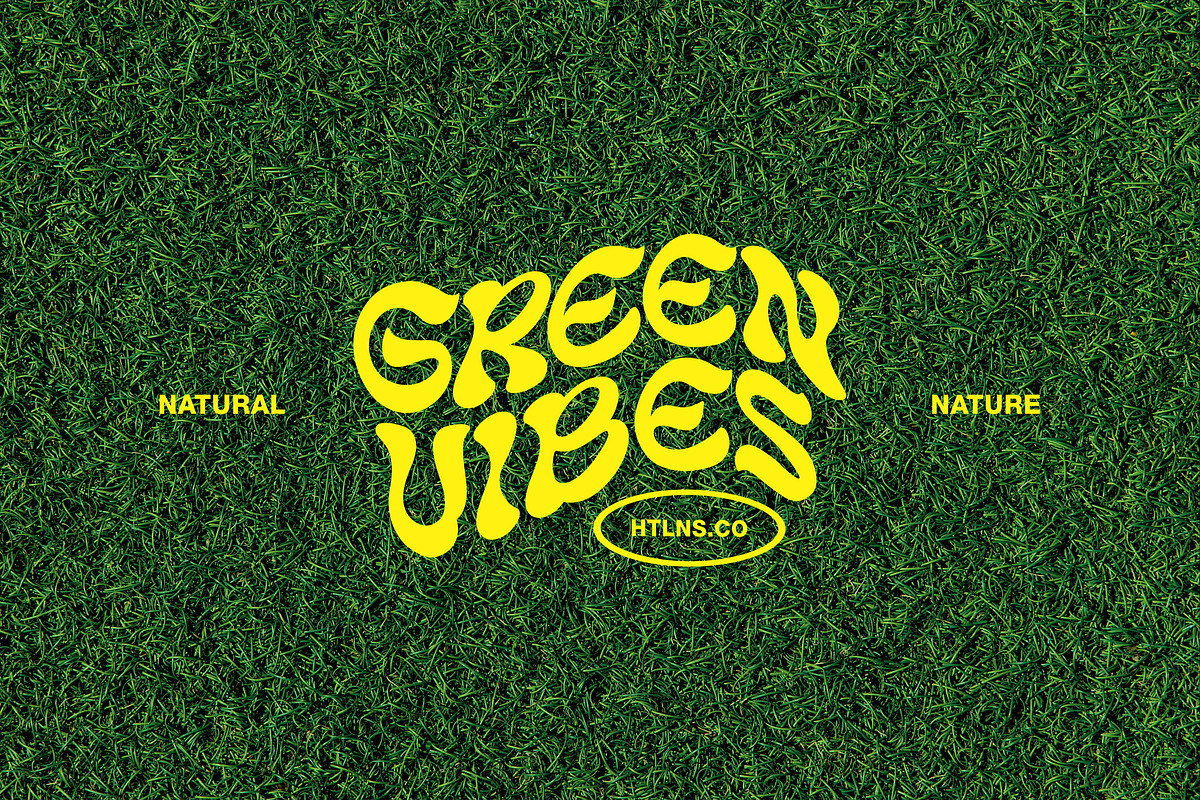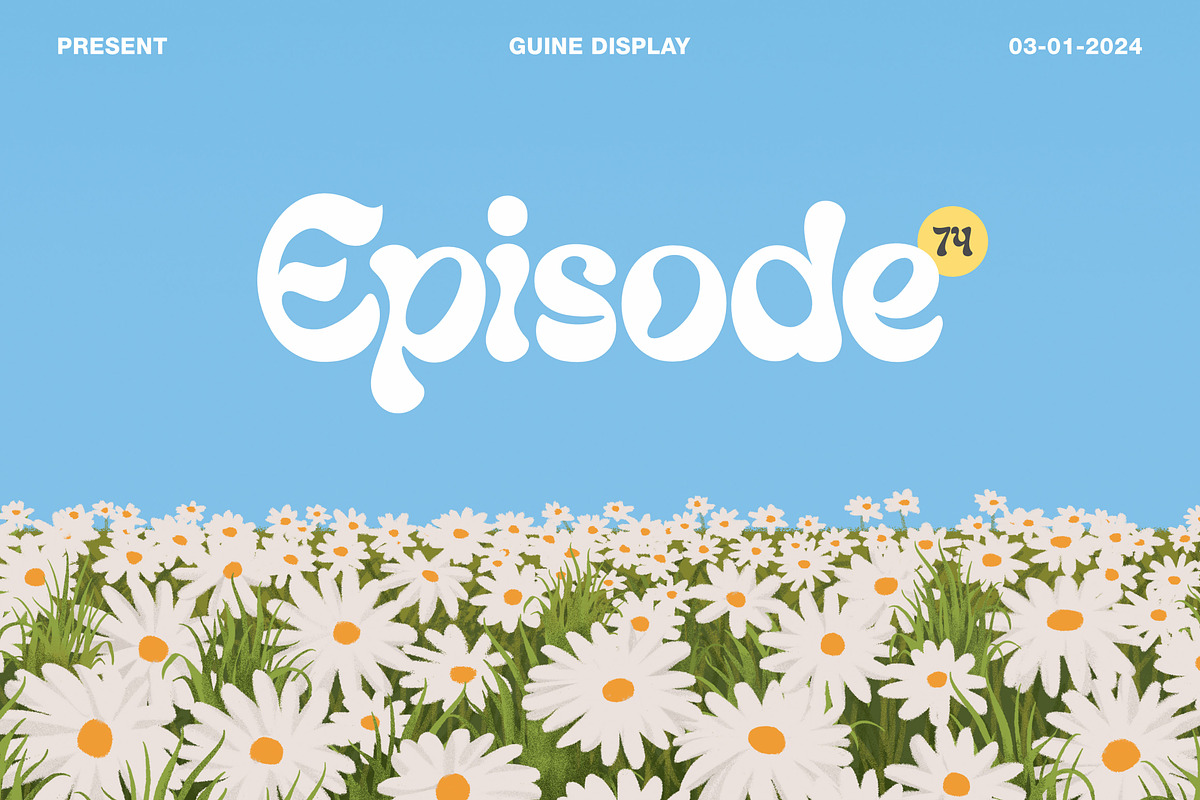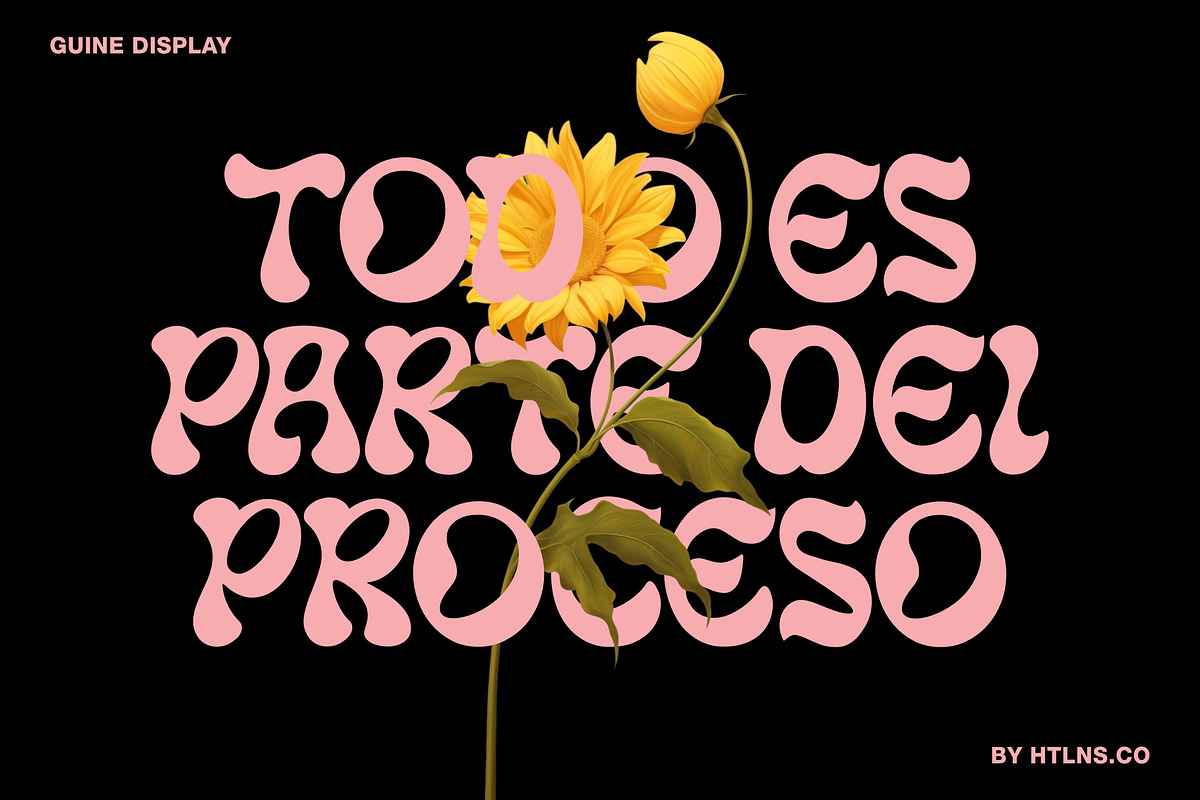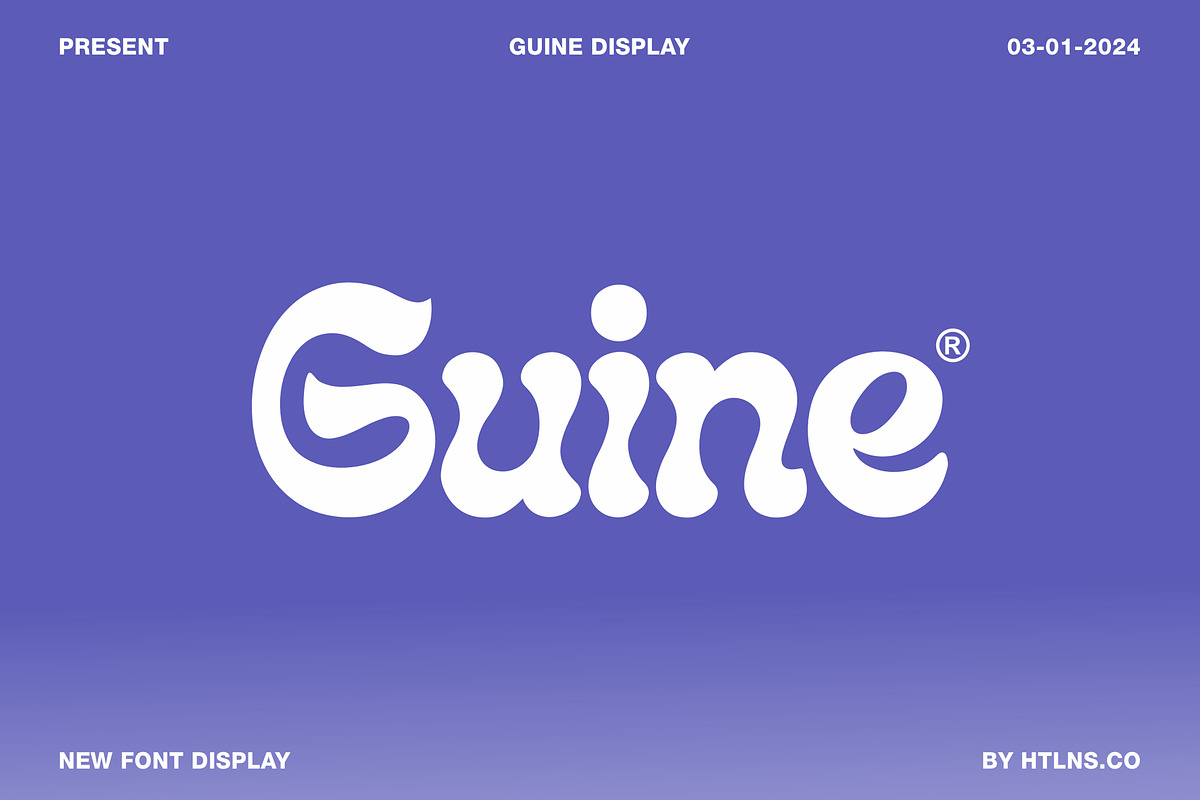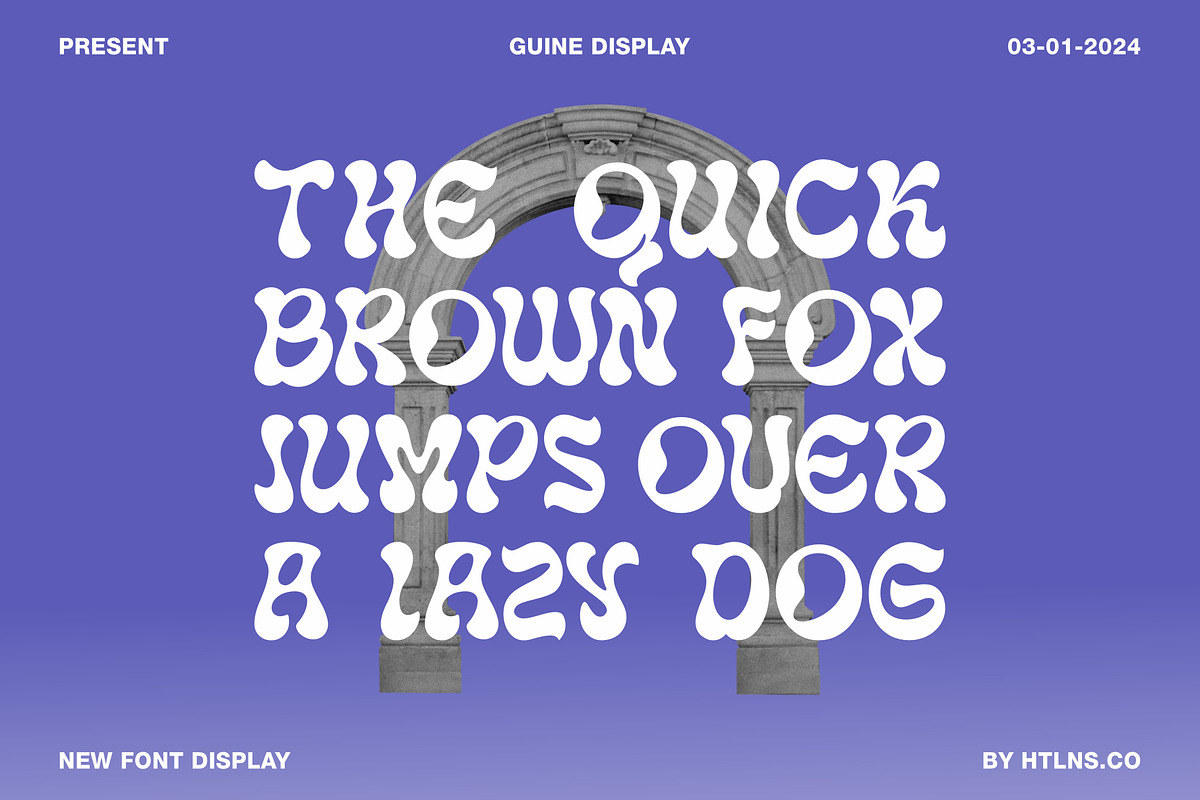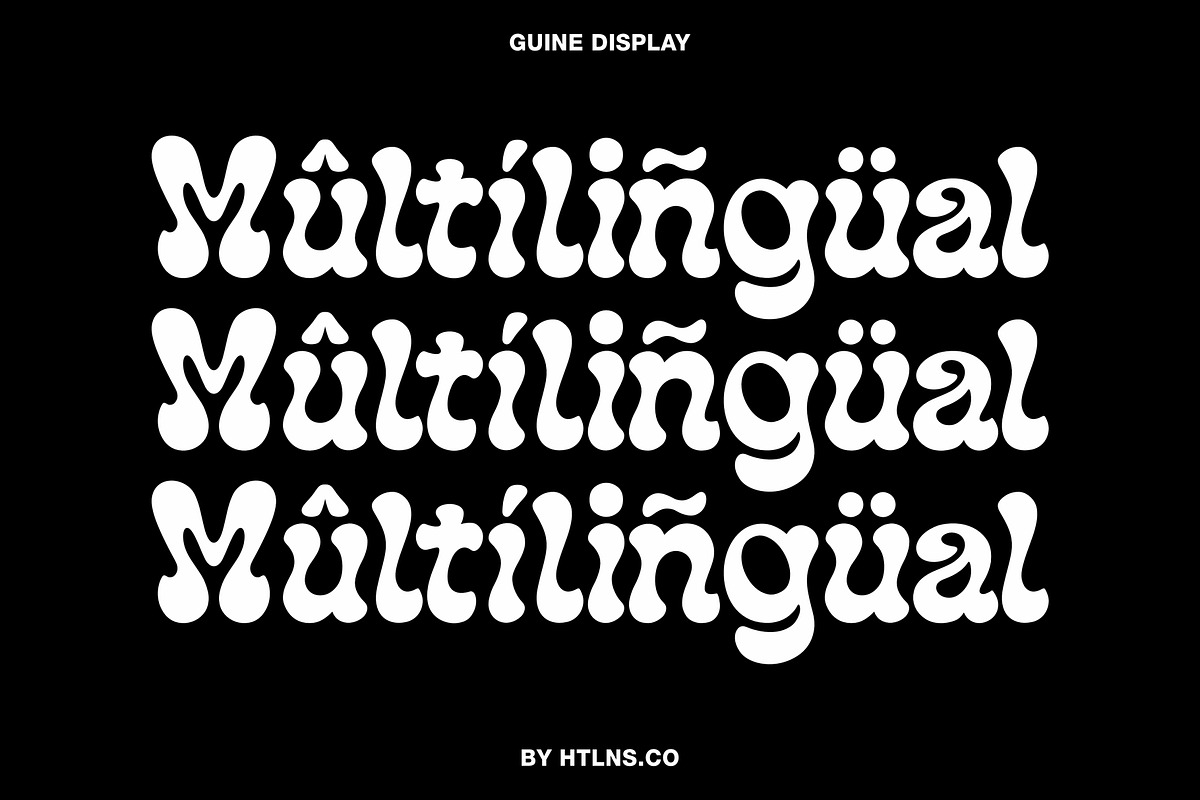
Guine Display
The Guine Display new font from Htlns.co with the unic style. This font was created to make it easier for designers and people to create their work, this font is easy to use and gives a modern impression even though this font has retro elements.
The Guine Display typeface font is suitable font for many creative products Design and easy use.